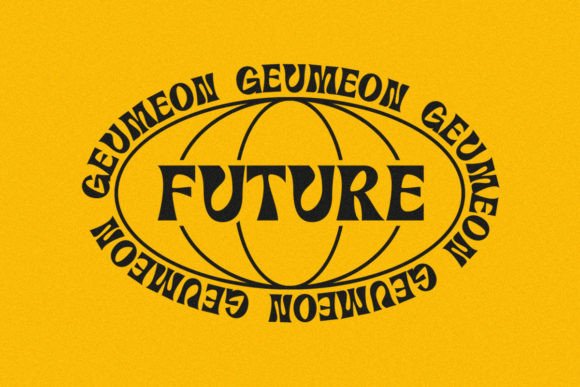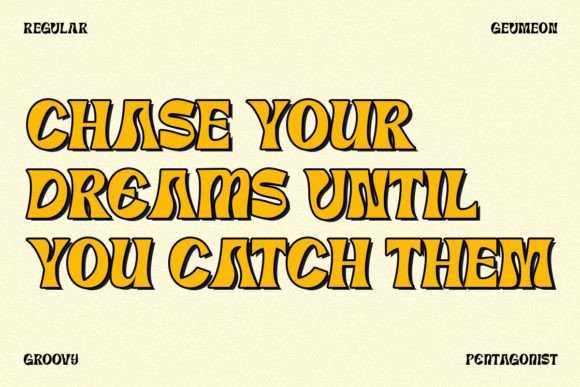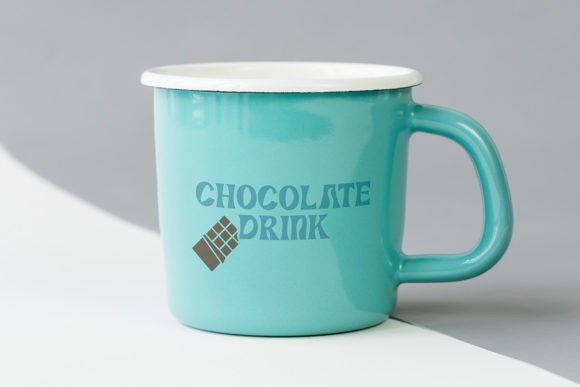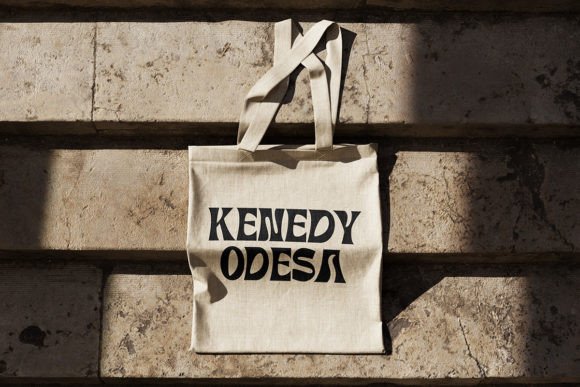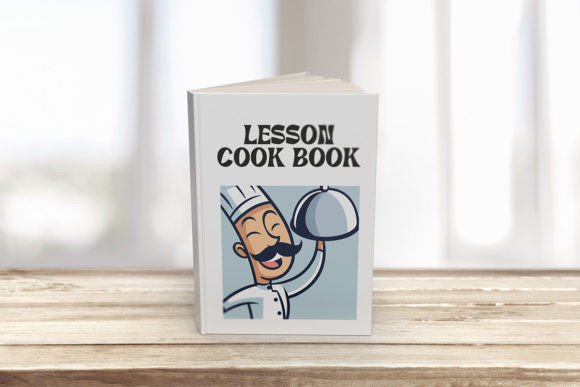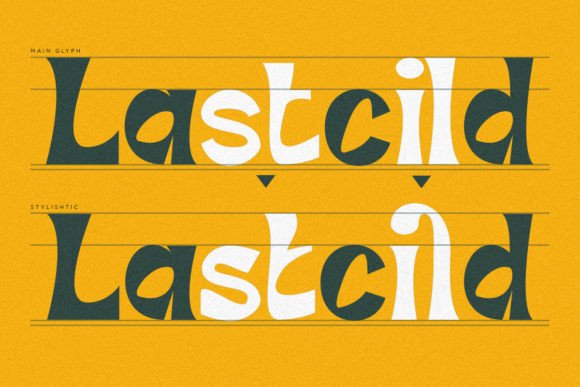
Introducing Geumeon Groovy Display Font: A Retro-Inspired Masterpiece
Are you tired of using the same old fonts in your designs? Look no further! Geumeon Groovy Display Font is here to add a touch of retro and vintage style to your creations. Inspired by the groovy era of the past, Geumeon is a display character that exudes a sense of fun, playfulness, and nostalgia.
What is Geumeon Groovy Display Font?
Geumeon Groovy Display Font is a carefully crafted font that pays homage to the retro and vintage styles of the past. With its unique and quirky design, Geumeon is perfect for designers and crafters looking to add a dash of personality to their work. Whether you’re creating a logo, poster, or social media graphic, Geumeon is sure to make your design stand out.
Key Features of Geumeon Groovy Display Font
Geumeon Groovy Display Font comes with a range of features that make it a versatile and practical choice for designers. Here are some of the key features:
Why Choose Geumeon Groovy Display Font?
So why should you choose Geumeon Groovy Display Font for your next design project? Here are just a few reasons:
- Unique and Quirky Design**: Geumeon’s retro-inspired design is sure to add a touch of personality to your work. With its bold lines, curvaceous shapes, and playful flair, Geumeon is the perfect font for designers who want to make a statement.
Geumeon Groovy Display Font is a unique and versatile font that’s perfect for designers and crafters looking to add a touch of retro and vintage style to their work. With its range of formats, ease of use, and quirky design, Geumeon is sure to become a favorite in your font collection. So why wait? Download Geumeon Groovy Display Font today and start creating your own groovy designs!